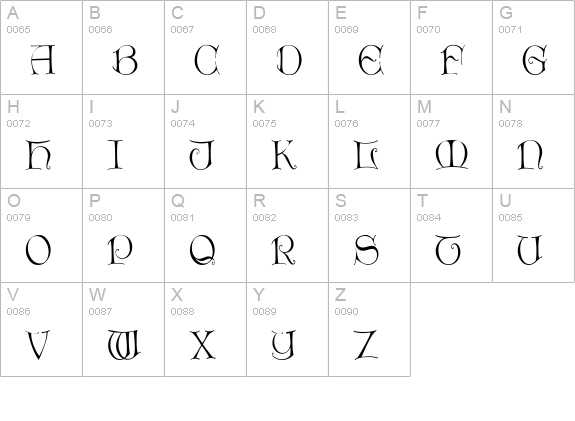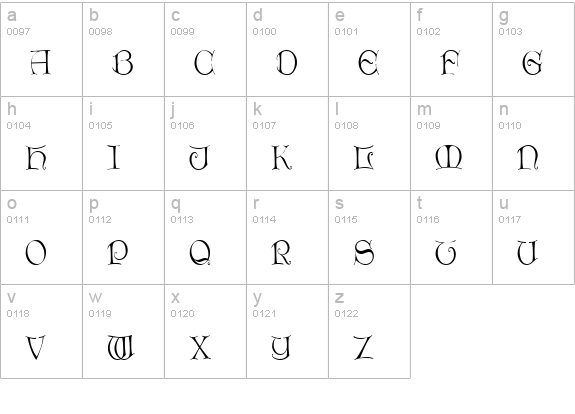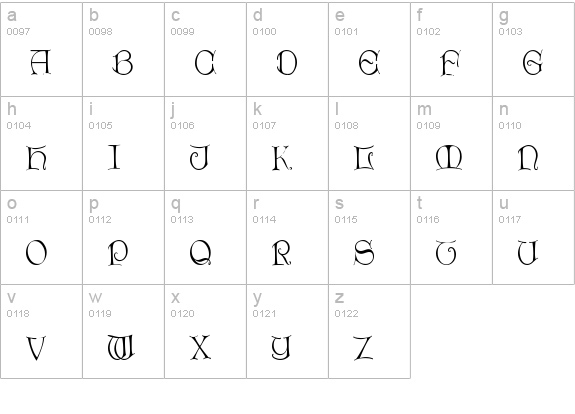
ThorinDisplayCaps Font Details
Introducing ThorinDisplayCaps, a brilliantly crafted font that exudes elegance and sophistication. This font is perfect for adding a touch of class to any design project, whether it be for branding, advertising, or simply making a statement. With its meticulously designed uppercase letters, ThorinDisplayCaps captivates attention and effortlessly commands a presence. What makes ThorinDisplayCaps even more remarkable is that it is available to download for free at FontsMarket.com. Yes, you read that right - this stunning font can be yours without spending a dime. FontsMarket.com is renowned for its vast collection of top-quality fonts, and ThorinDisplayCaps is no exception. Unleash your creativity and explore the endless possibilities that come with this exceptional typeface. Its crisp lines and impeccable letterforms create a visual feast for the eyes, ensuring that your designs will stand out from the crowd. Whether you're designing a logo, crafting a website, or working on a print project, ThorinDisplayCaps will elevate your work to new heights. The versatility of ThorinDisplayCaps is unparalleled - it seamlessly adapts to any design concept, effortlessly complementing both modern and traditional aesthetics. Its clean and legible design ensures that your message is conveyed with utmost clarity and impact. So why wait? Download ThorinDisplayCaps today and let your imagination run wild. With its remarkable quality and the fact that it's freely available at FontsMarket.com, there's no reason not to add this exceptional font to your collection. Embrace the power of ThorinDisplayCaps and watch as your designs come to life in ways you never thought possible.